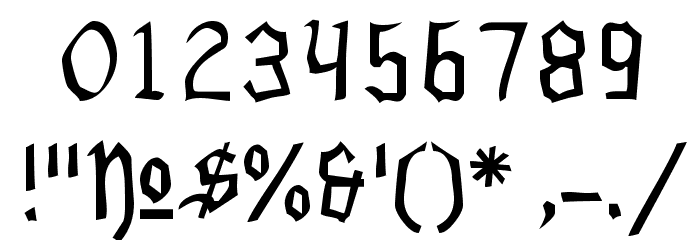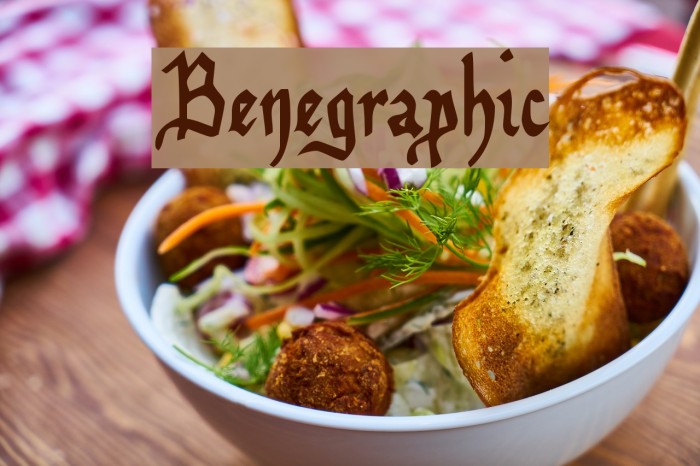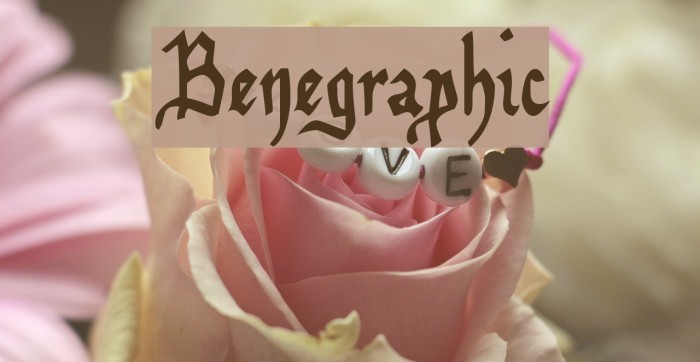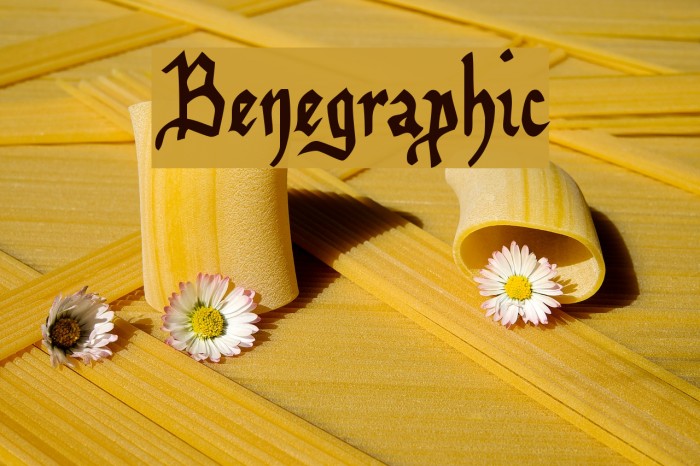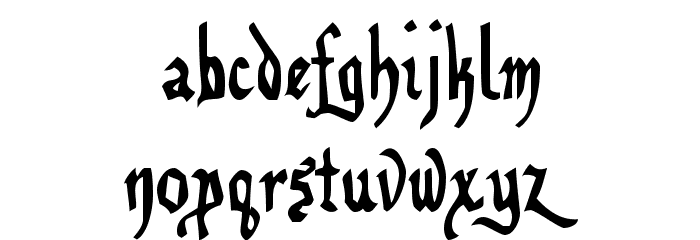
Benegraphic Font
This font features a bold, angular design reminiscent of traditional blackletter styles, yet with a modern twist. The characters are sharply defined with pointed edges and a slightly condensed form, giving it a distinctive and striking appearance. The uppercase letters are particularly elaborate, with intricate details that enhance their visual impact. The lowercase letters maintain the same angular style, ensuring consistency across the typeface. Numbers and special characters are equally stylized, making them suitable for decorative purposes. This font's unique style makes it ideal for projects that require a touch of elegance and historical flair.
A bold, angular blackletter-inspired font with a modern twist.
• Proposed Projects: Ideal for branding, posters, book covers, and any project needing a historical or gothic touch.
• Category: Blackletter
• Bold: Yes
• Italic: No
• Weight: Bold
• Width: Condensed
• Character Spacing: Normal
• Contrast: High
• Overall Style: Decorative
• Use Case: Logos, Headlines, Posters